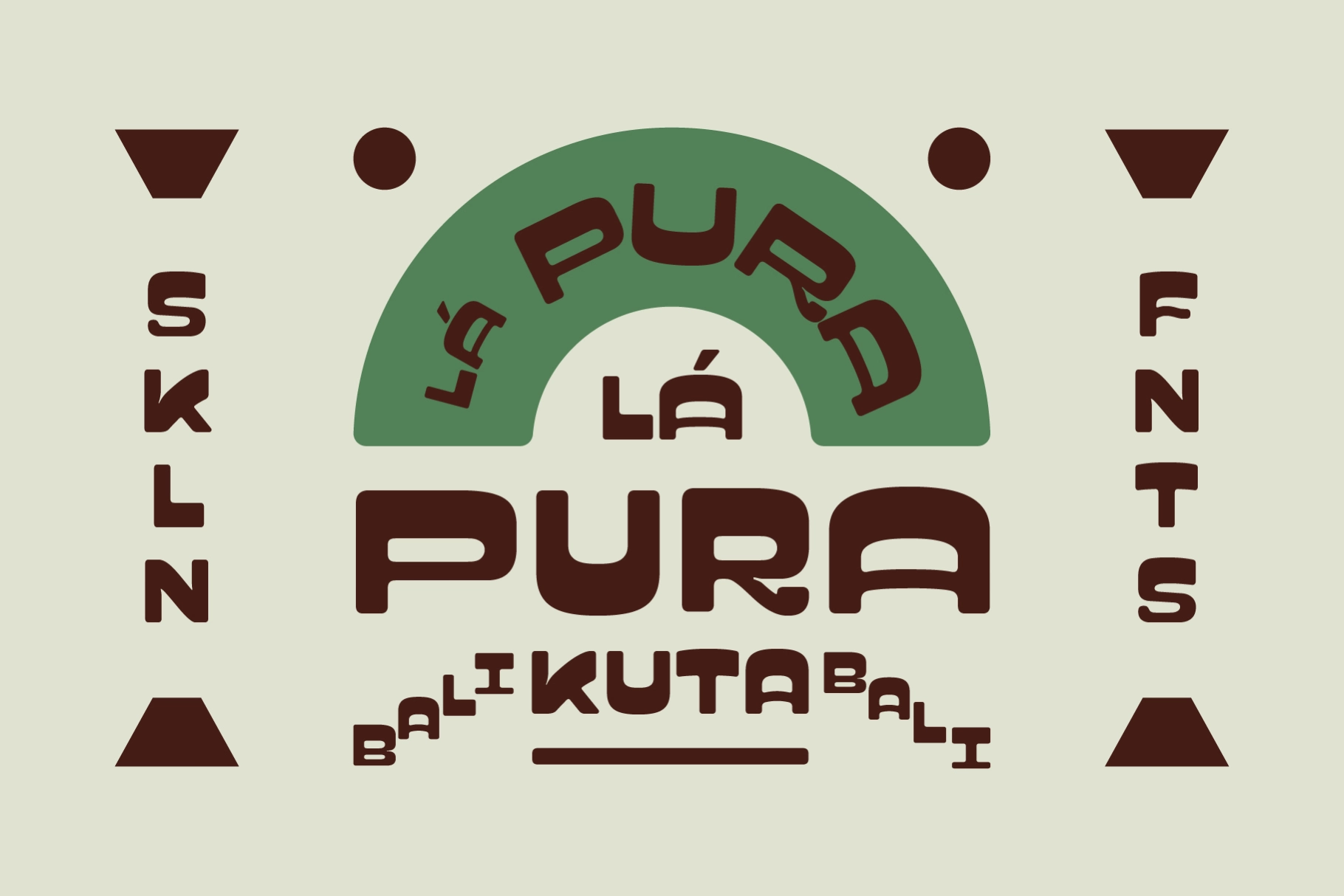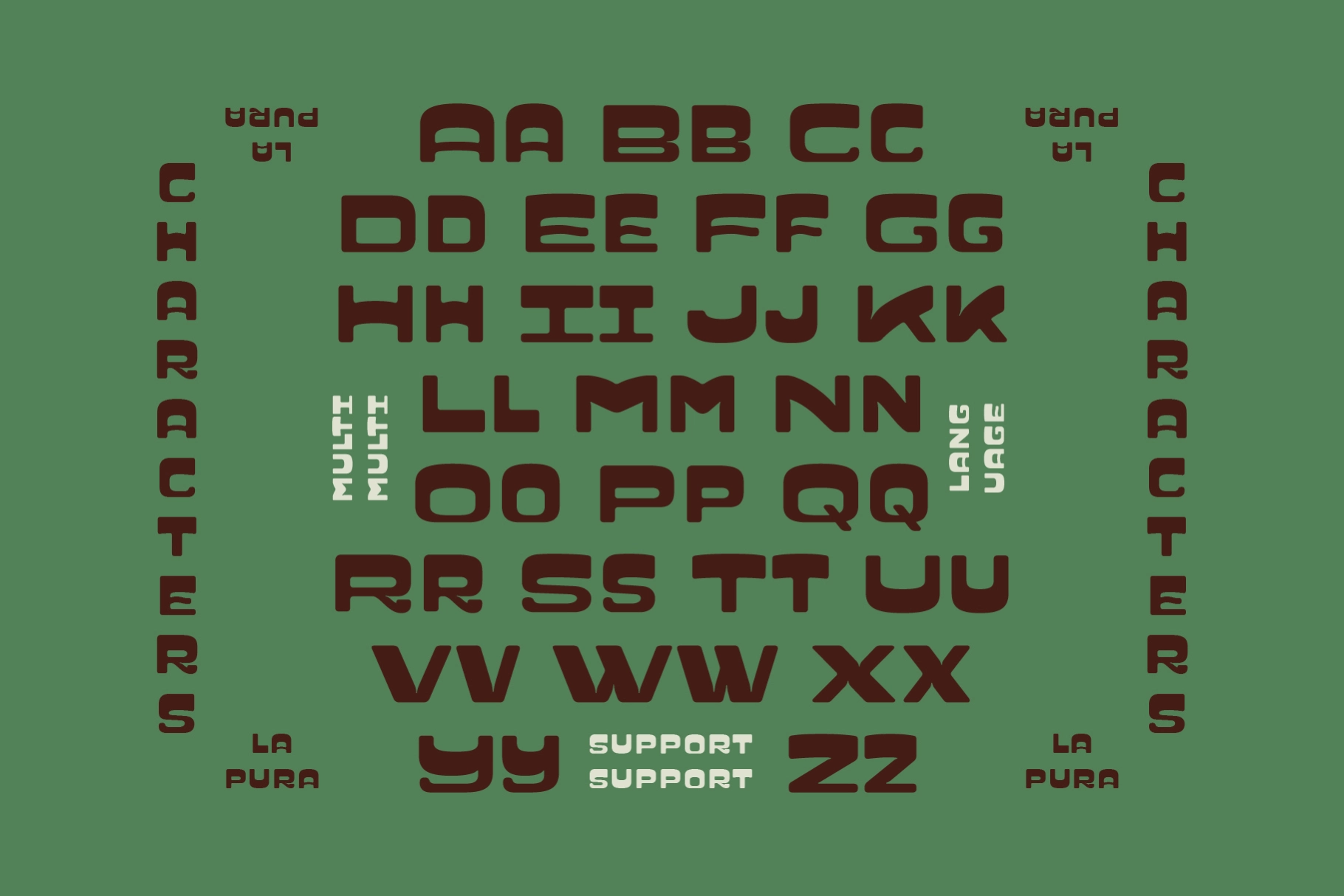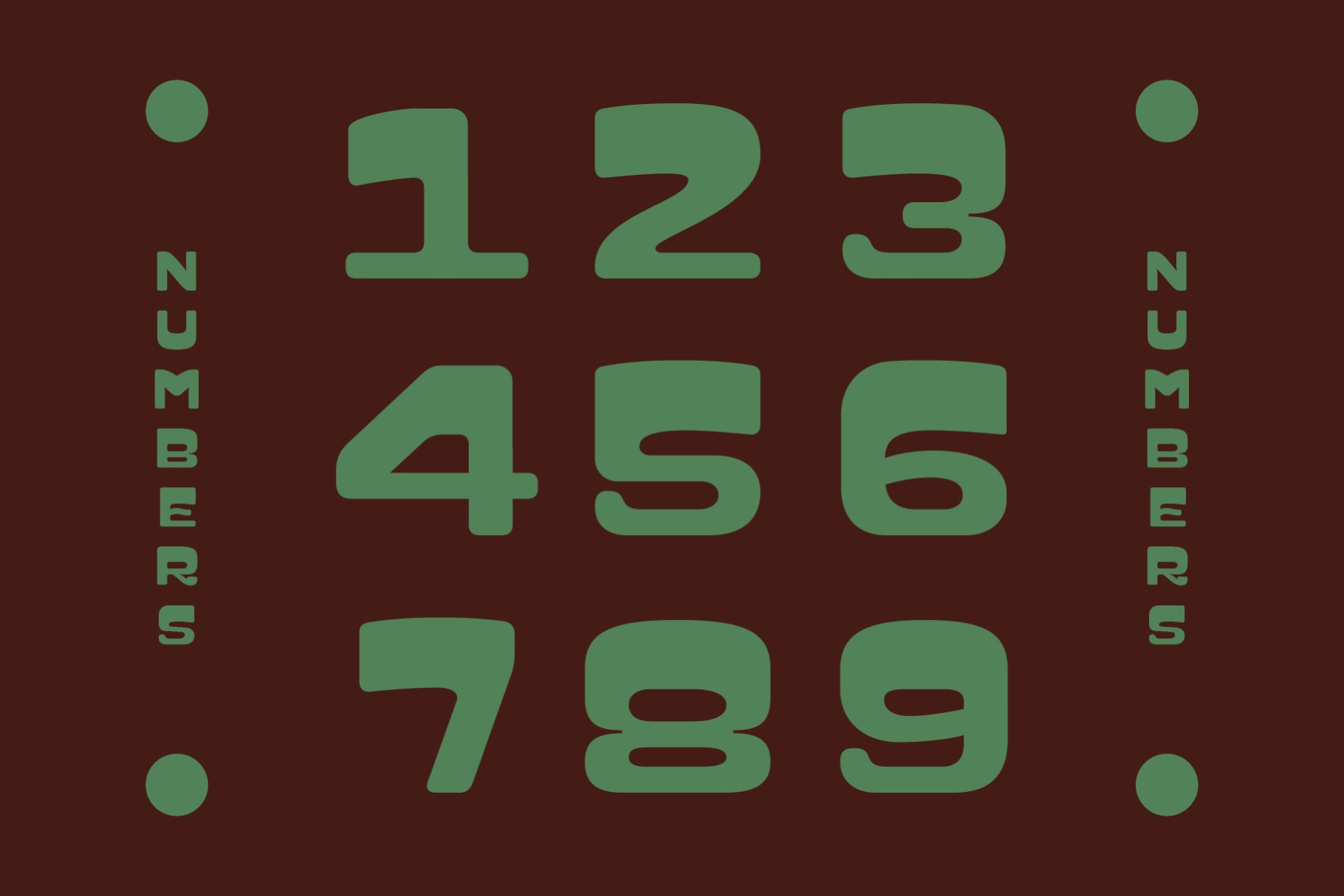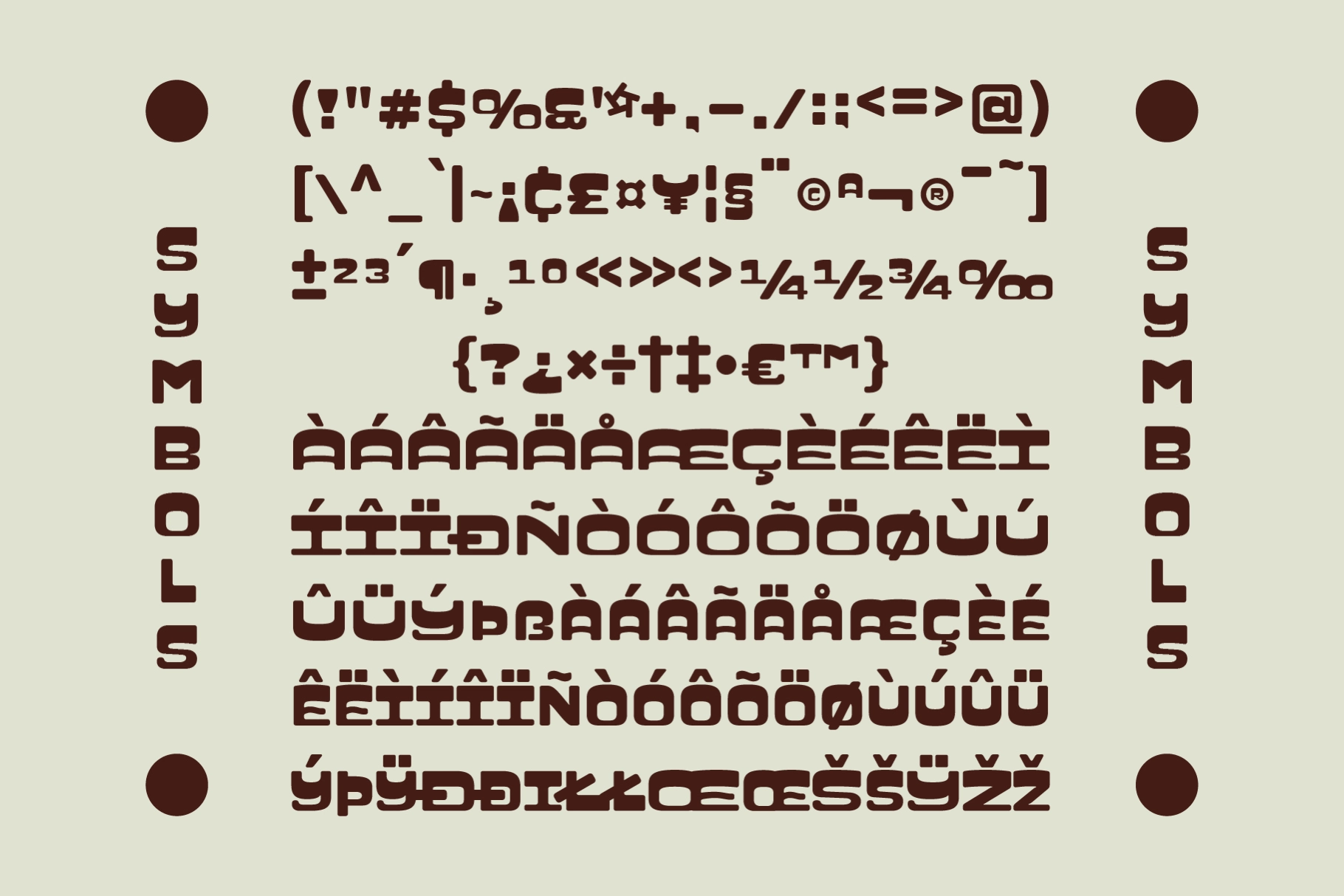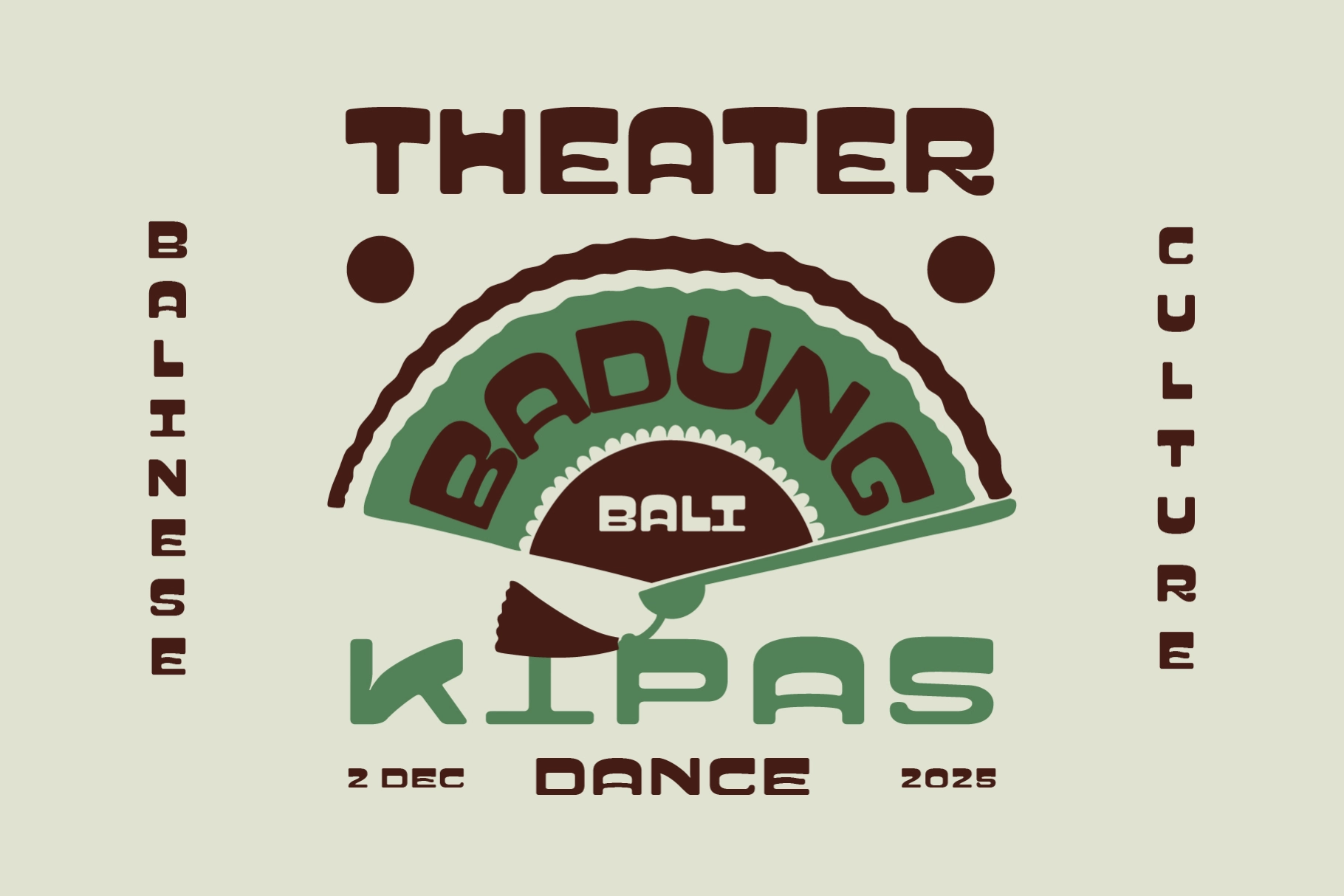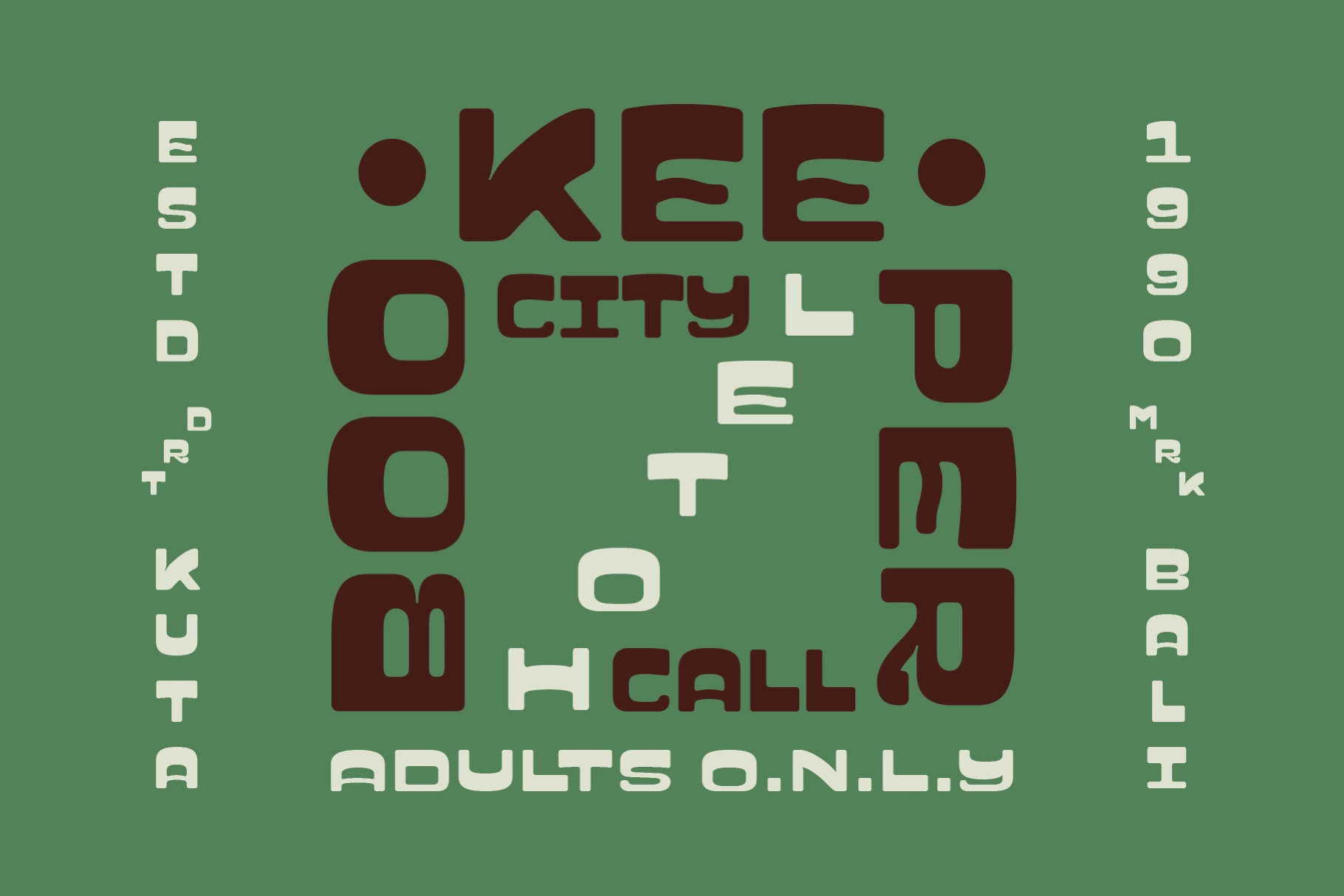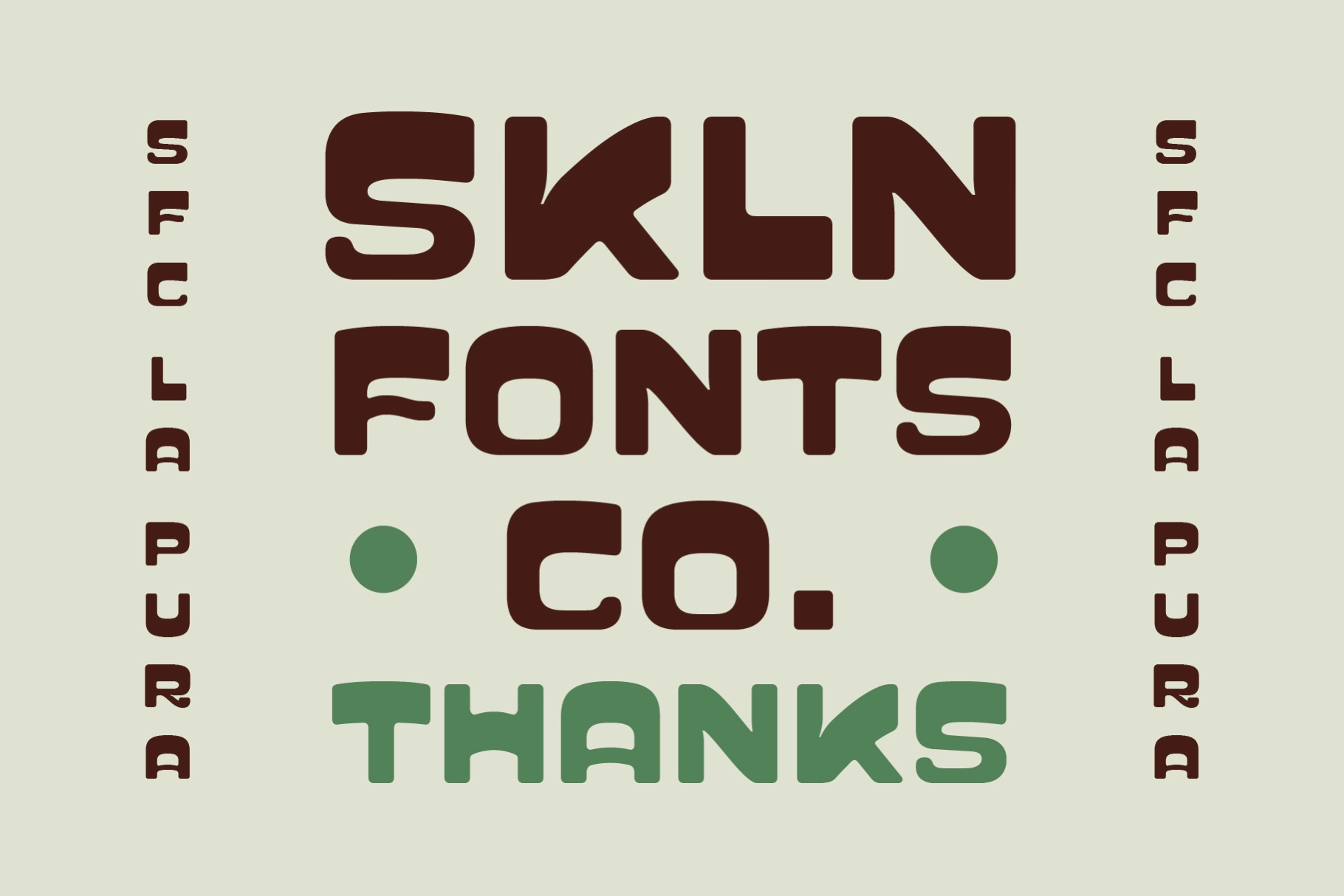
SFC La Pura
La Pura is a bold retro-tropical display font inspired by Balinese signage, ceremonial architecture, and island-style lettering that blends cultural heritage with modern artistic flair. Designed with chunky curves, playful proportions, and warm authenticity, La Pura brings instant personality to branding, packaging, apparel, posters, travel campaigns, and logo design that needs a lively, organic touch.
The typeface includes full uppercase, alternates, multilingual support, ligatures, and unique stylistic shapes that evoke the vibrant rhythm of Bali, perfect for surf wear, resort marketing, food & beverage brands, and creative design studios seeking a distinctive island-inspired typography.
- All Caps Typeface
- Hand-Drawn Letterforms